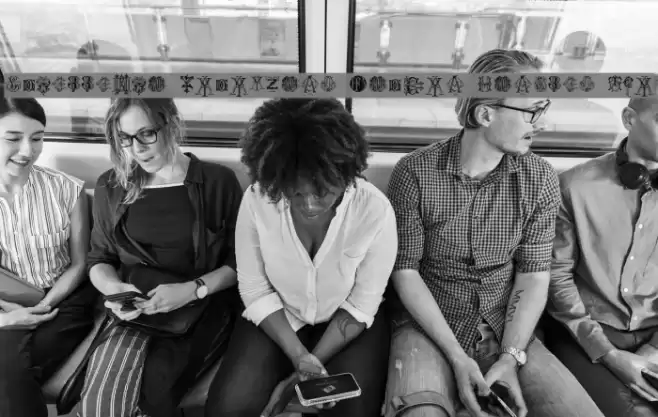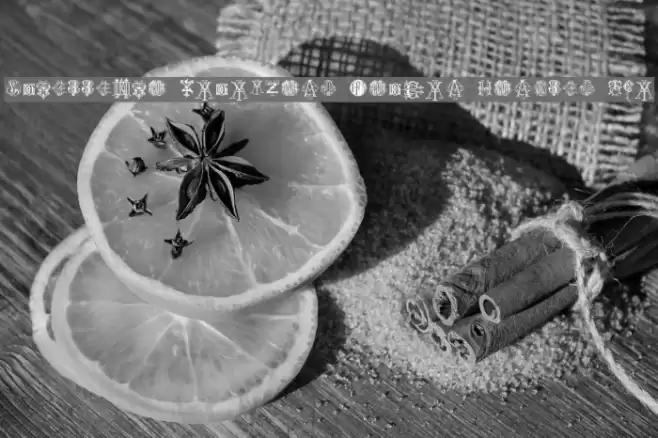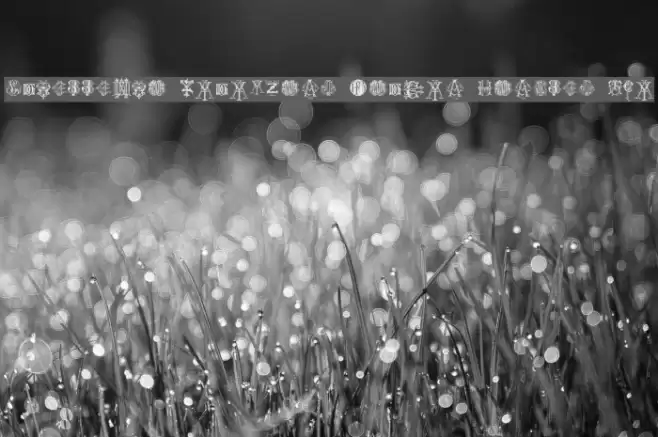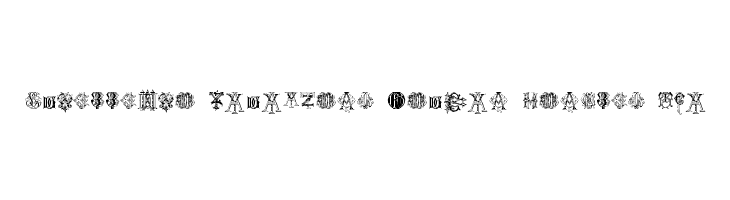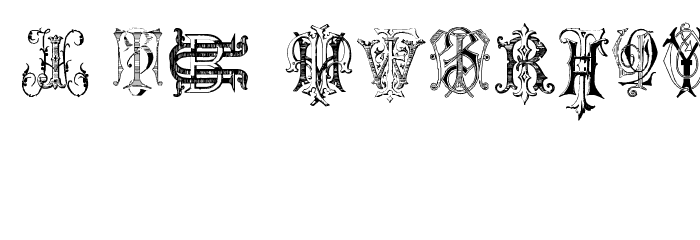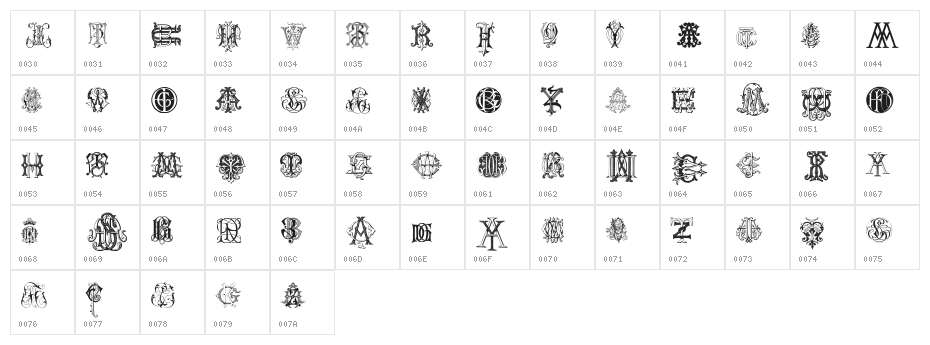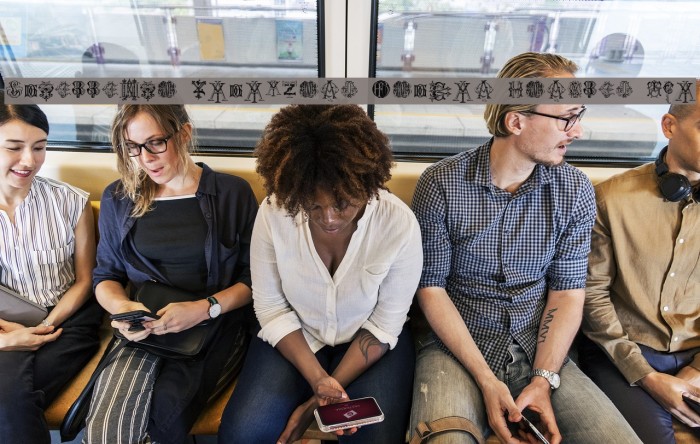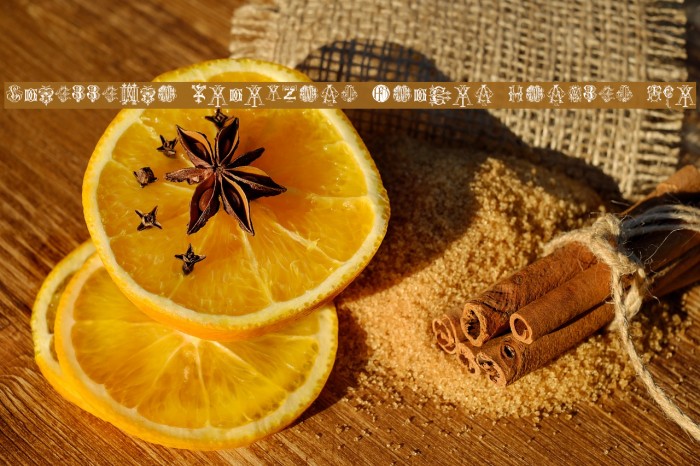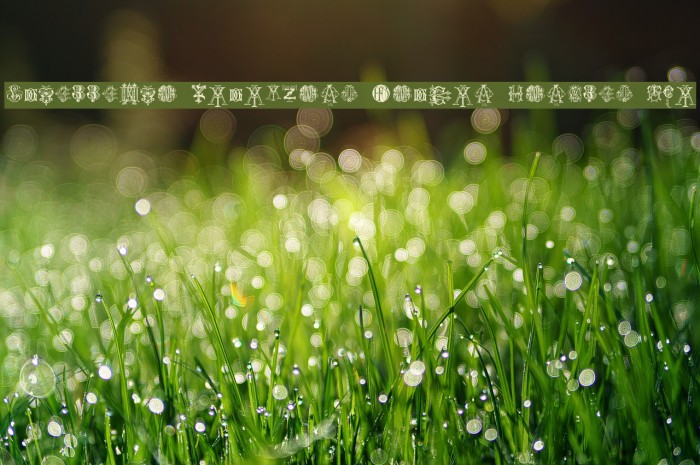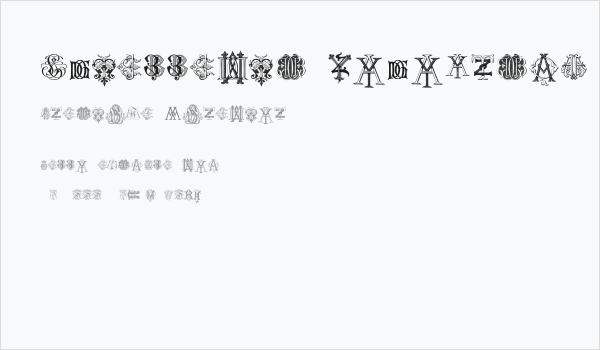
Intellecta Monograms Random Samples Two Font
Intellecta Monograms Random Samples Two Description
This font is an intricate and highly decorative collection of monograms, featuring elaborate and ornate designs. Each letter is uniquely crafted with flourishes, swirls, and embellishments that give it a luxurious and vintage feel. The characters are enclosed in various shapes, such as circles and shields, adding to their complexity. The font is reminiscent of classic calligraphy and heraldic symbols, making it ideal for projects that require a touch of elegance and sophistication. The detailed craftsmanship of each letter makes it suitable for high-end branding, invitations, and decorative purposes.
An ornate and decorative monogram font with intricate designs from Gothic fonts.
- Proposed Projects: Ideal for luxury branding, wedding invitations, certificates, and decorative art pieces.
- Overall Style: Vintage
- Use Case: Logos, Decorative art, Invitations